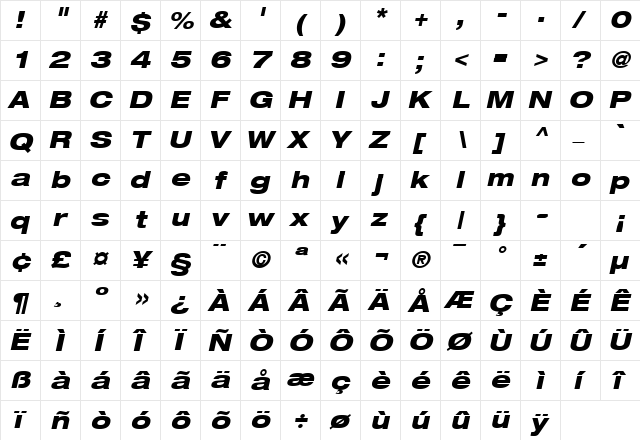
HeaveneticaExtd8 HvyOblSH Font Preview
HeaveneticaExtd8 HvyOblSH
Design Context for HeaveneticaExtd8 Typeface
HeaveneticaExtd8 is a composed and adaptable typeface that performs quietly and consistently across a wide range of design contexts.